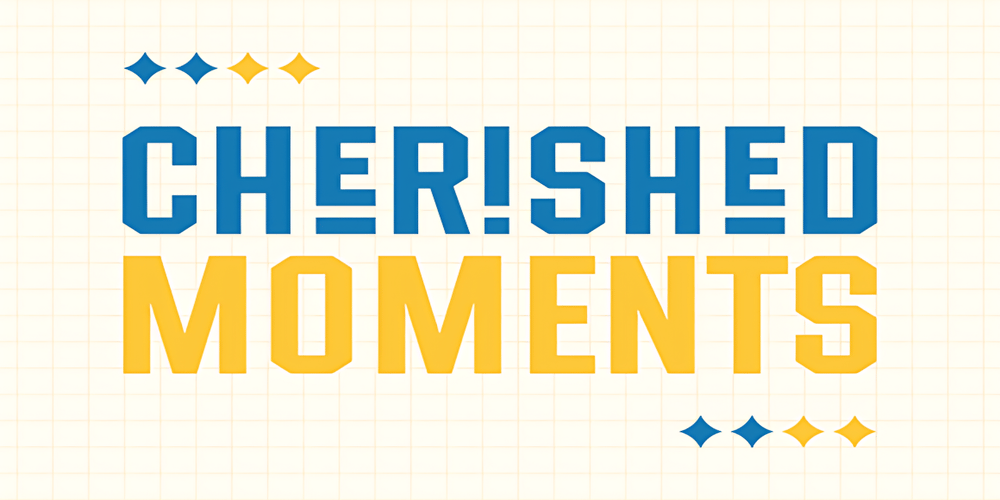
Cherished Moments Font Family was designed by Lutz Baar and published by Adita Fonts. Cherished Moments contains 2 styles and family package options. Cherished moments is a cool and modern display font that gives your text a fresh, contemporary vibe. With its sleek design, it adds a touch of style to any project. Perfect for headings, banners, or any creative work, Leading College is your go-to choice for a trendy and eye-catching typography solution. Upgrade your design game with this modern font that effortlessly blends simplicity and sophistication.